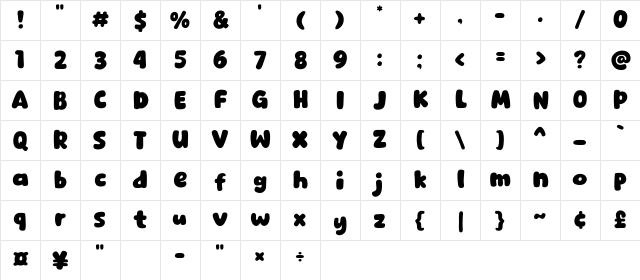
Dear Grandma Regular Free Font
Dear Grandma Regular
Foundry: Khurasan
Designer: Khurasan
Design Context for Dear Grandma
Dear Grandma is a composed and adaptable typeface that performs quietly and consistently across a wide range of design contexts.